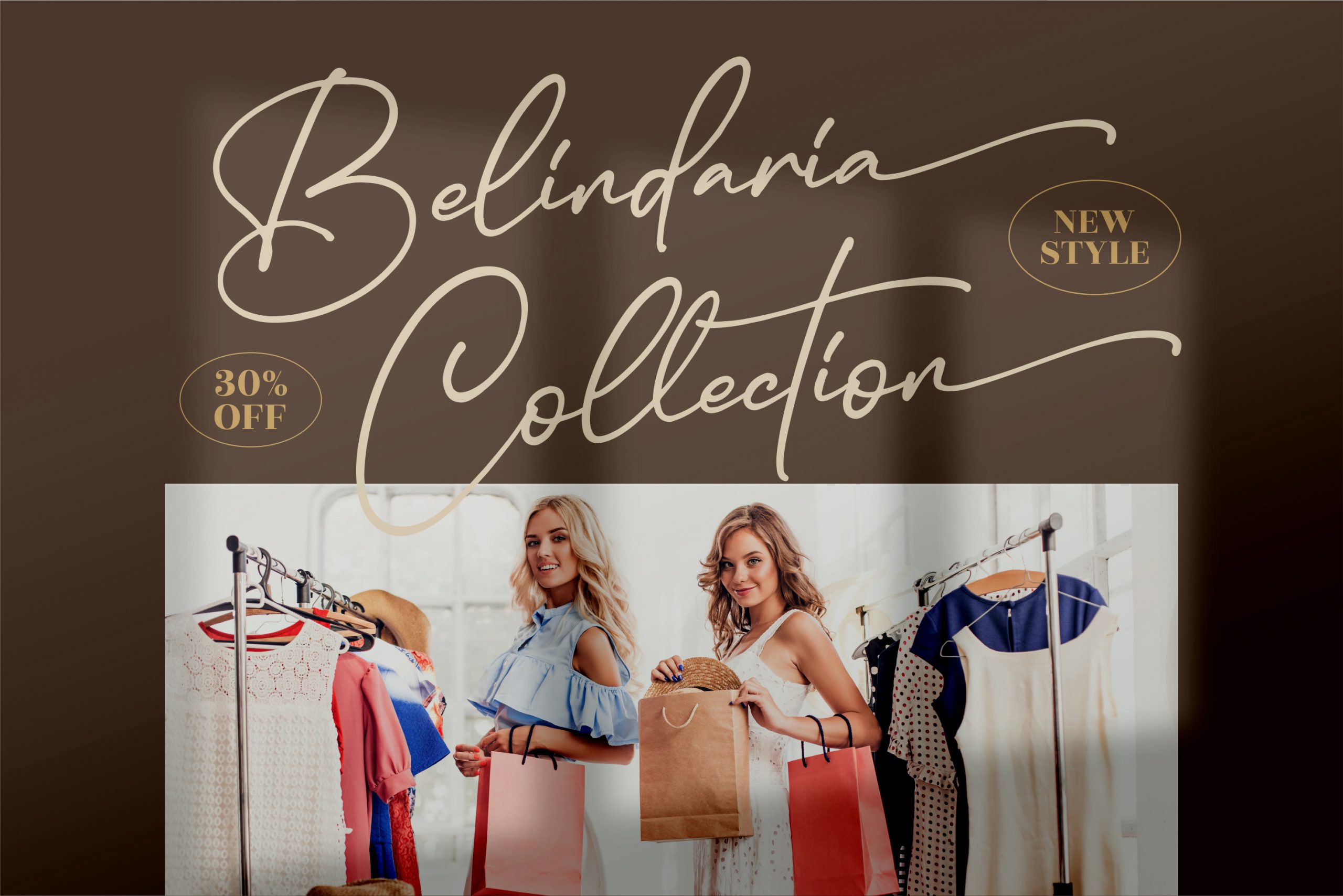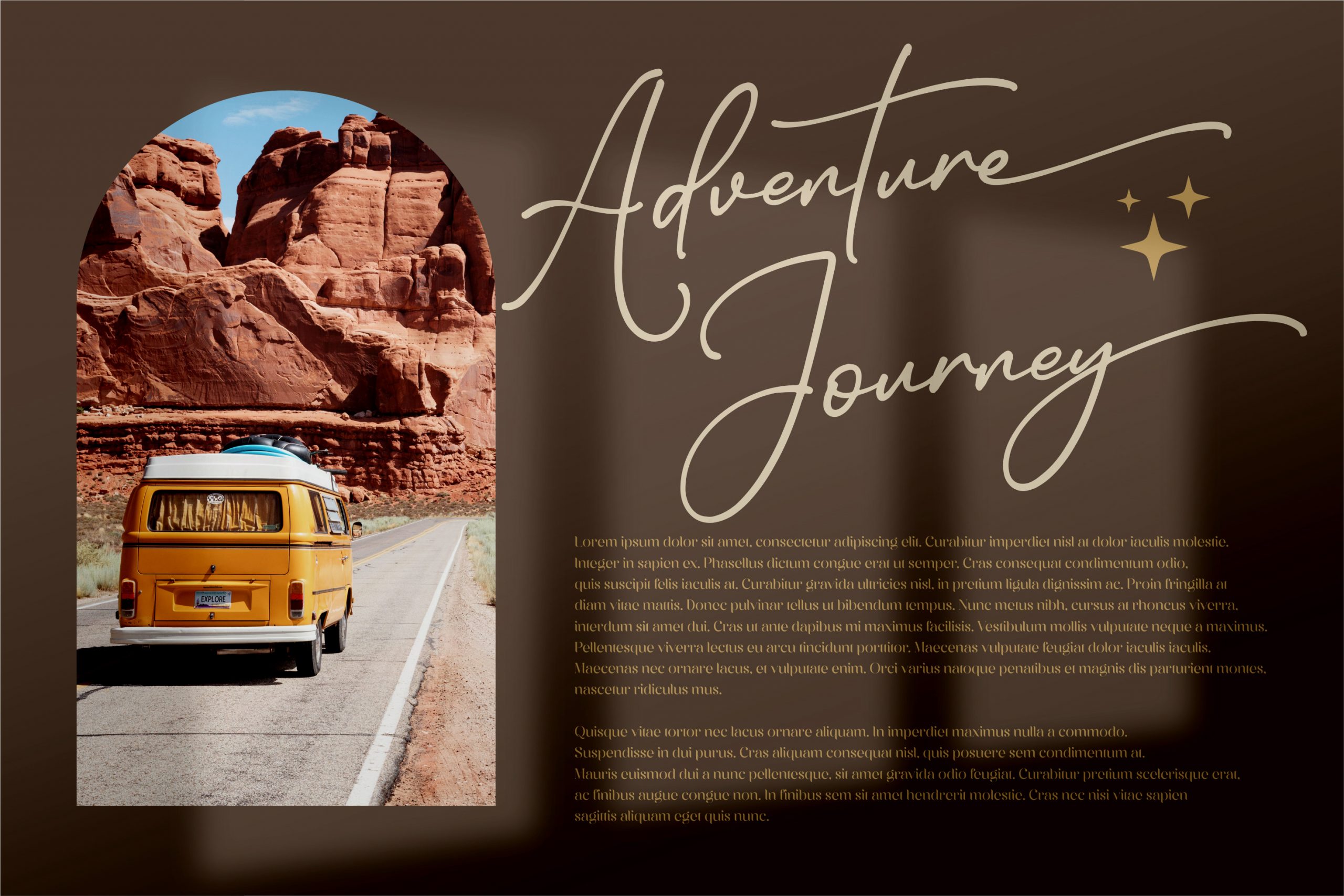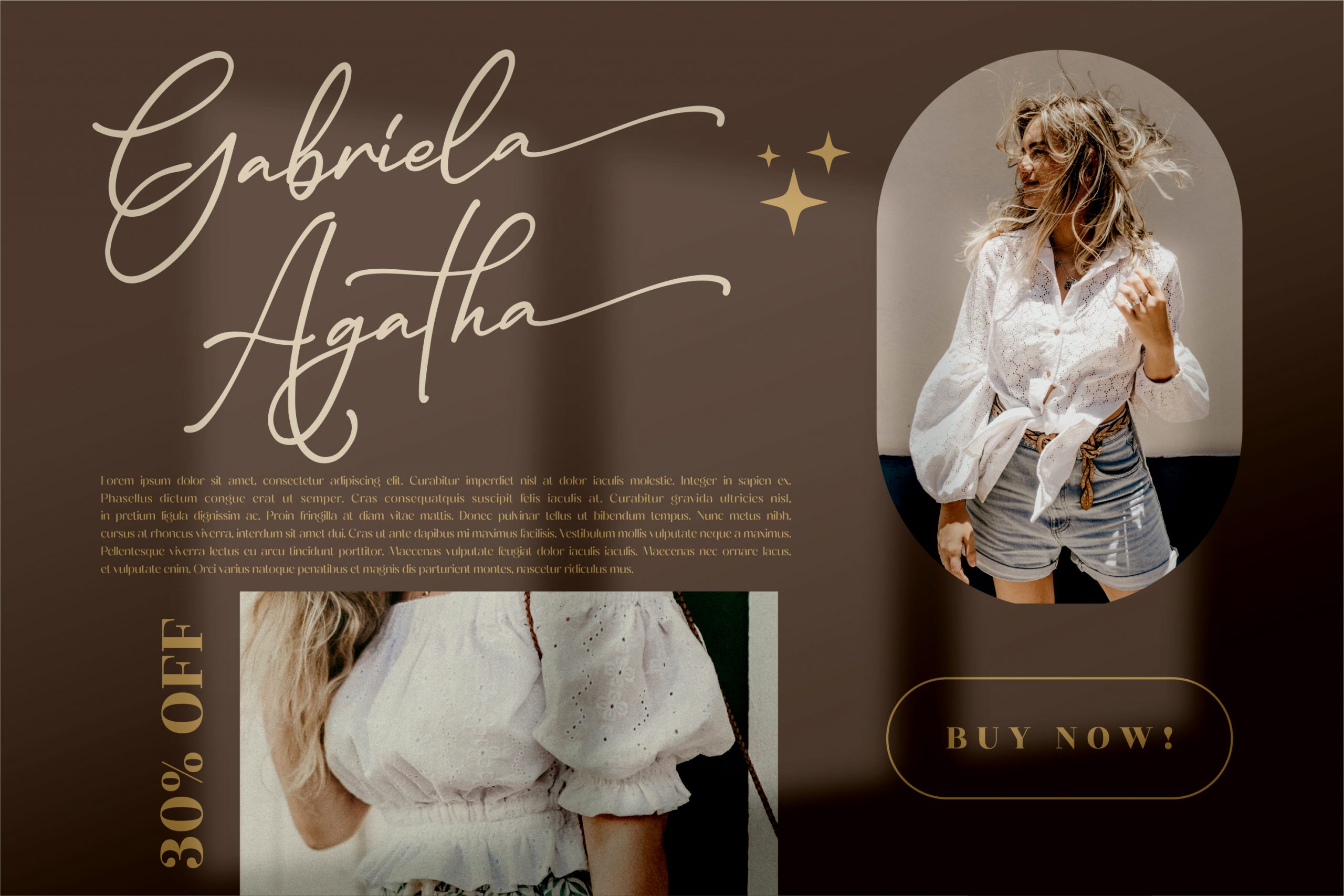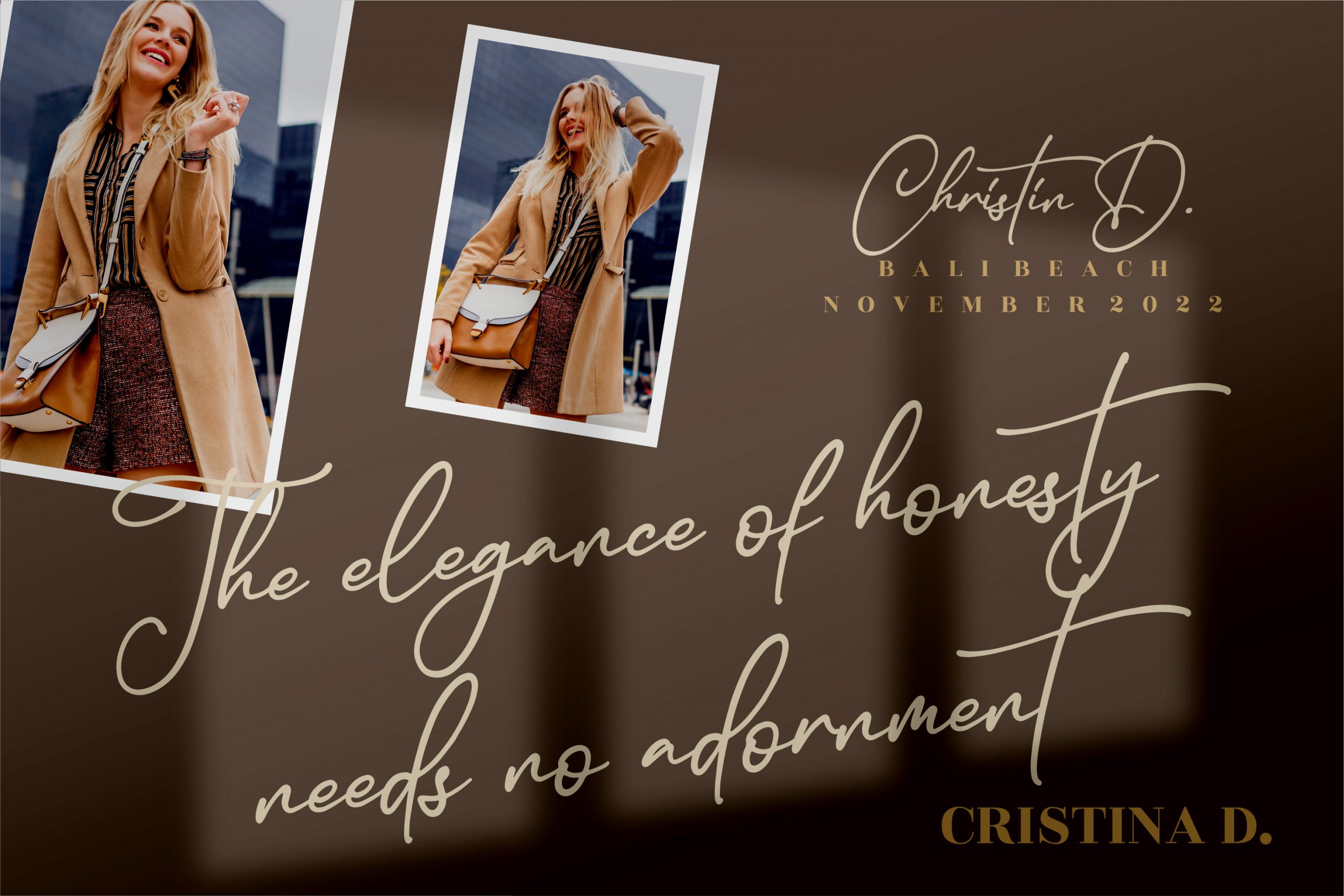
Casterdam Baletica Font
Casterdam Baletica Script Font
This is a premium signature font, suitable for any projects such as: logos, branding projects, homeware designs, product packaging, mugs, quotes, posters, shopping bags, t-shirts, book covers, name card, invitation cards, greeting cards, label, photography, watermark, special events, and all your other luxury projects that need a premium signature taste.